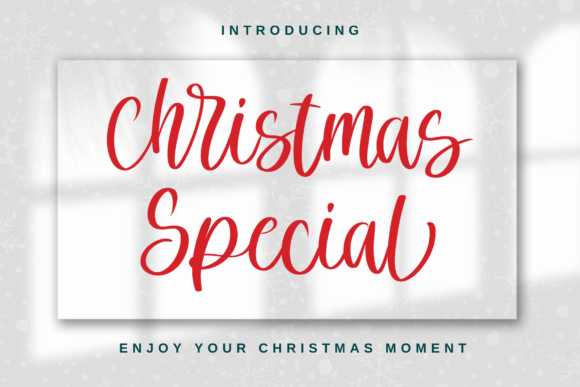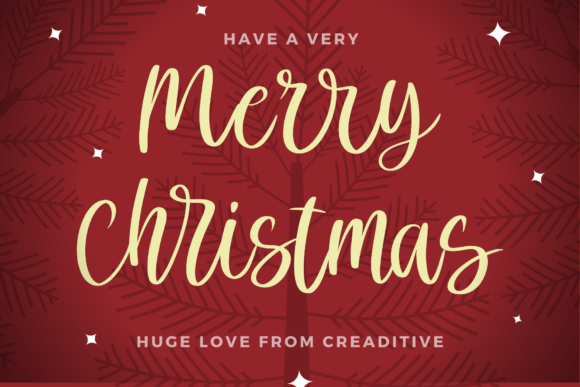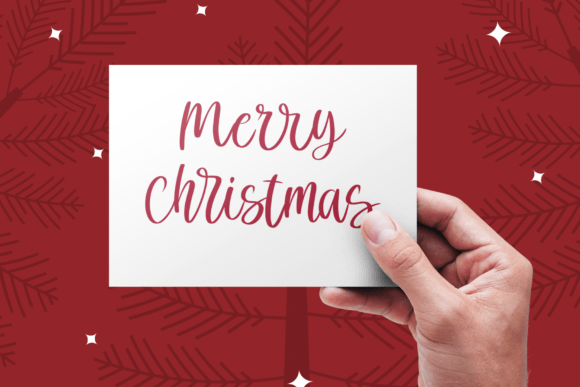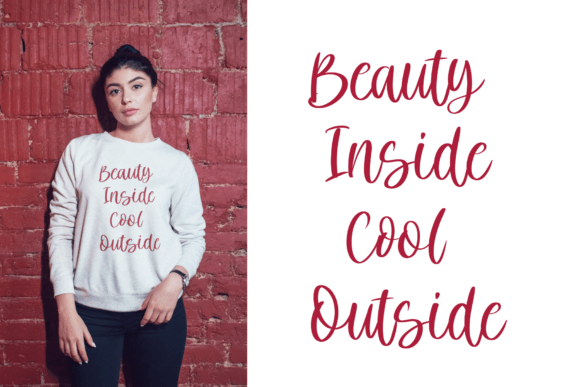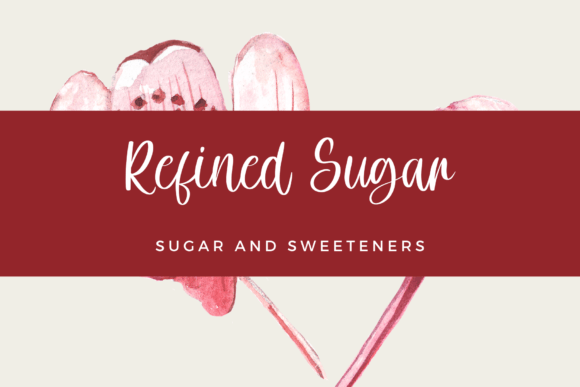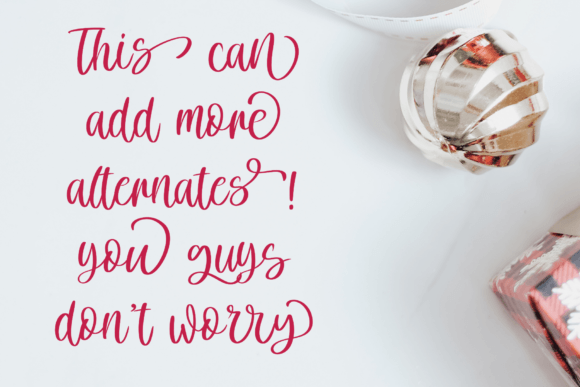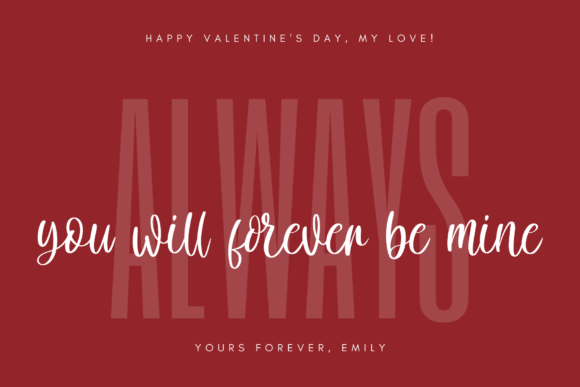
Deck the Halls with a Touch of Whimsy
As the snowflakes start to fall and the festive lights twinkle to life, creatives everywhere know it’s time to break out the holiday cheer. For many designers, there’s no better way to get into the spirit than by experimenting with new fonts. And that’s exactly where the Christmas Special Font comes in – a delightful, handwritten script font that’s sure to add a touch of magic to any project.
Whether you’re crafting holiday cards, designing festive invitations, or simply want to add some seasonal flair to your social media posts, the Christmas Special Font is the perfect tool for the job. With its charming, whimsical feel and extensive character set, this font is a true treasure for designers of all skill levels. And with PUA encoding, you’ll have access to all the glyphs and ligatures you need to bring your ideas to life – no extra effort required!
Christmas Special Font Key Features
- Font Family: A unique, hand-drawn font designed specifically for festive occasions, featuring intricate details and ornaments.
- Character Set: Includes a wide range of characters, including uppercase and lowercase letters, numbers, punctuation marks, and special characters, as well as festive symbols and ornaments.
Designer Review: Christmas Special Font
✨ I was excited to dive into the Christmas Special Font, and I must say it has its moments. The font is designed to evoke a festive atmosphere, and it achieves that with its playful, handwritten feel. The font is versatile and can be used for various projects, from social media graphics to holiday cards.
Some of the strengths of the font include:
- Its unique, handwritten style adds a personal touch to designs
- The font is highly legible, even at smaller font sizes
- It’s a great choice for projects that need a fun, festive vibe
However, I do have some concerns:
- ⚠️ The font lacks consistency in its letterforms, which can make it look a bit sloppy at times
- ⚠️ Some of the glyphs are not as well-designed as others, which can affect the overall quality of the font
- ⚠️ The font is not suitable for formal or professional projects
Overall, I think the Christmas Special Font is a fun and festive addition to any design project. While it has some limitations, it’s perfect for projects that need a playful touch. Just be mindful of the potential drawbacks and use it accordingly.
To get the most out of Christmas Special Font, try combining it with festive colors and graphics to create a holiday-themed design. You can also use it to add a touch of elegance to your designs.
Christmas Special Font is perfect for creating holiday cards, gift tags, and social media posts. It’s also great for adding a festive touch to your website or blog.